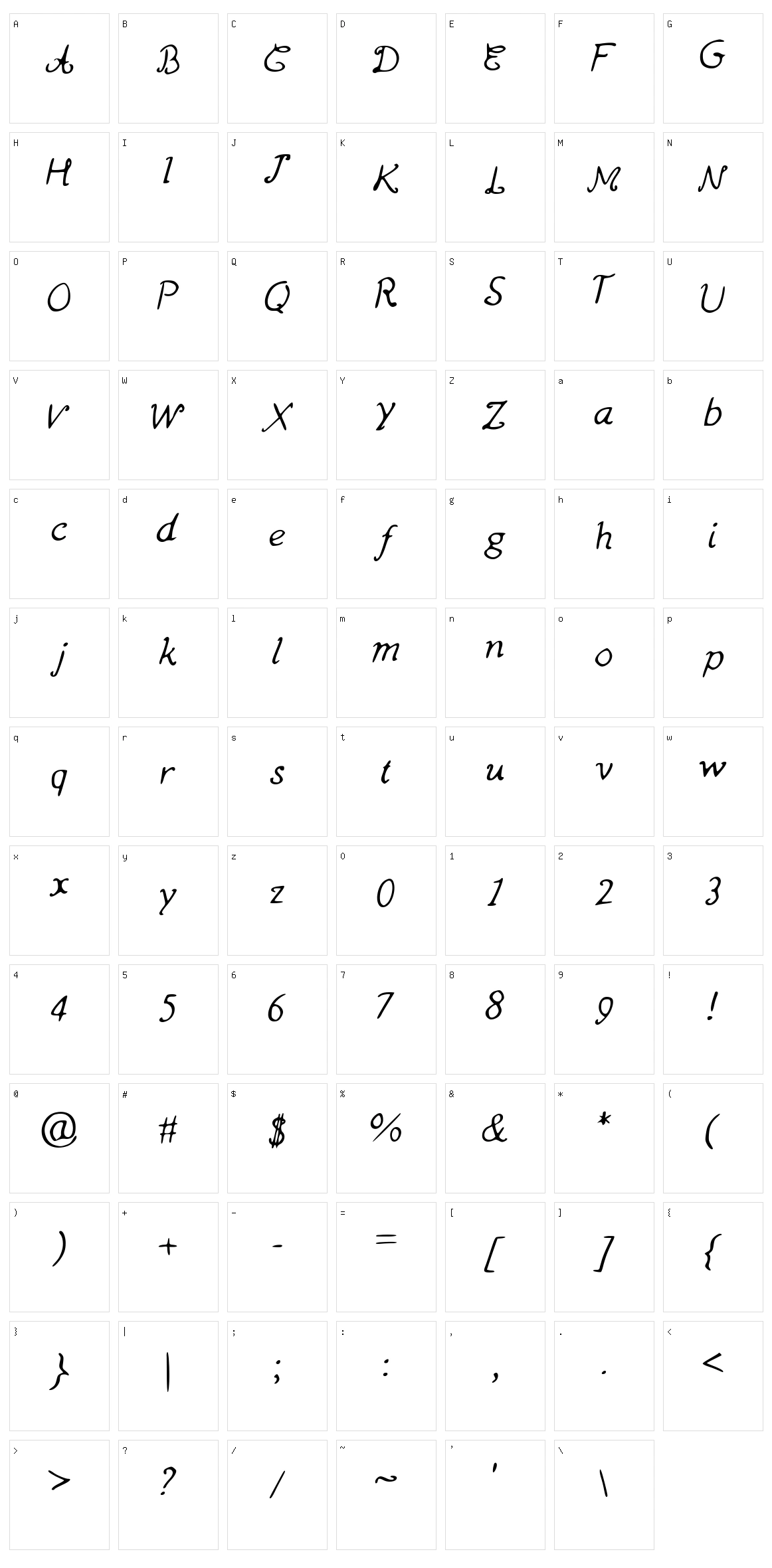
The free font Last Line is carefully designed by Cameron Bensimon, showcasing a thoughtful balance of creativity and usability and falls under the Script font style. When you download the ZIP file, it contains only 435.14 KB of font files, making it lightweight and quick to download. Please review the license details below to understand permitted usage and distribution rights. If license information is not available, we recommend using this font for personal projects only or contacting the author directly for commercial usage permissions.